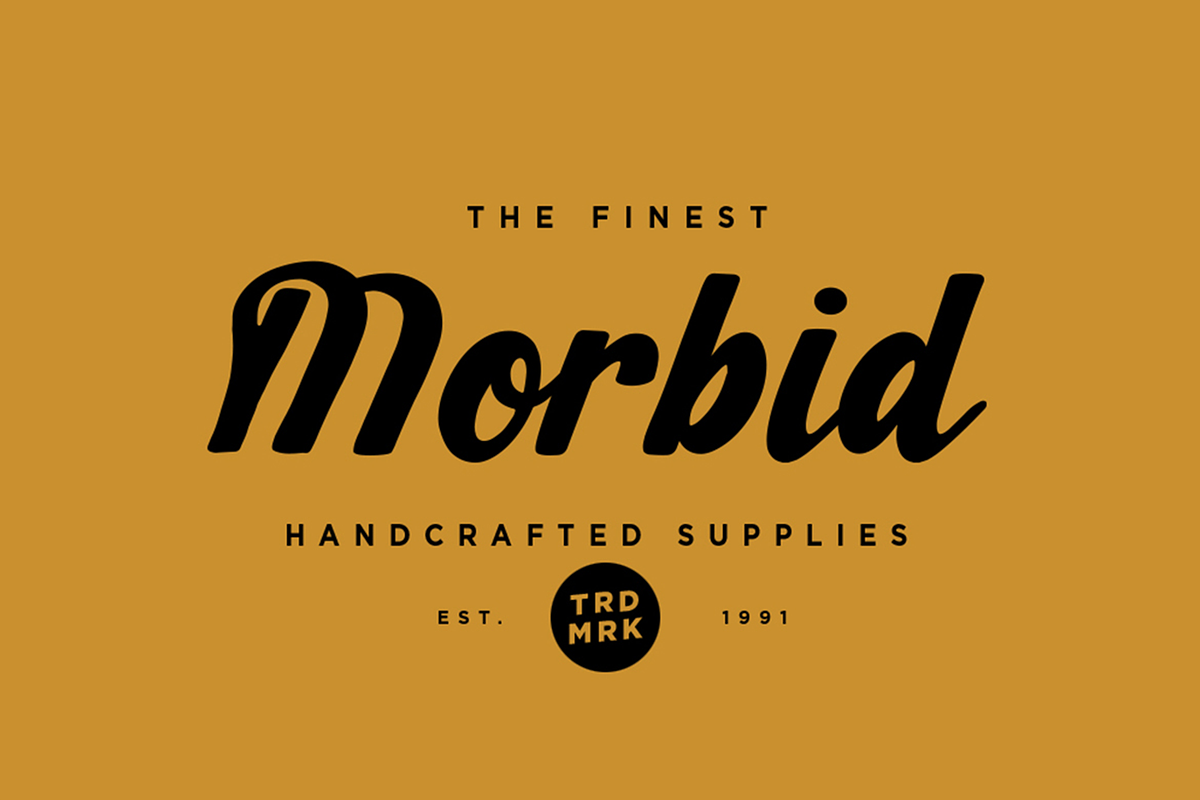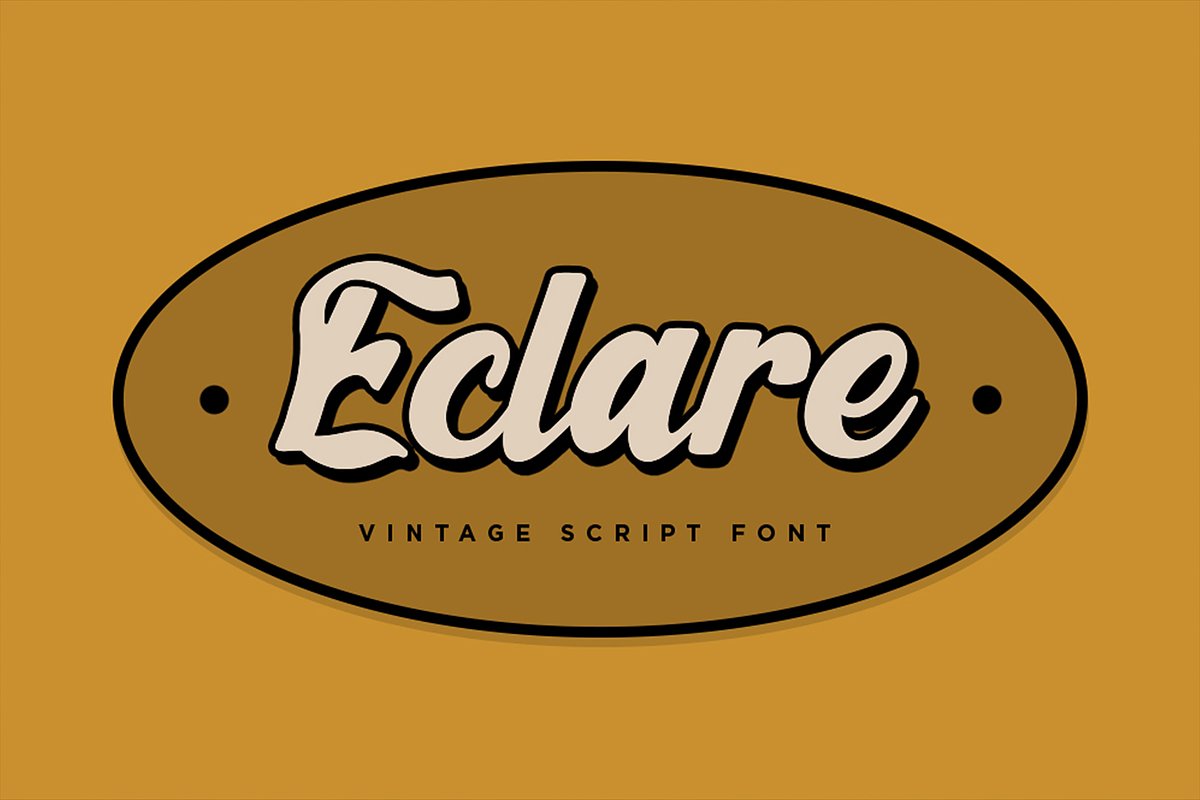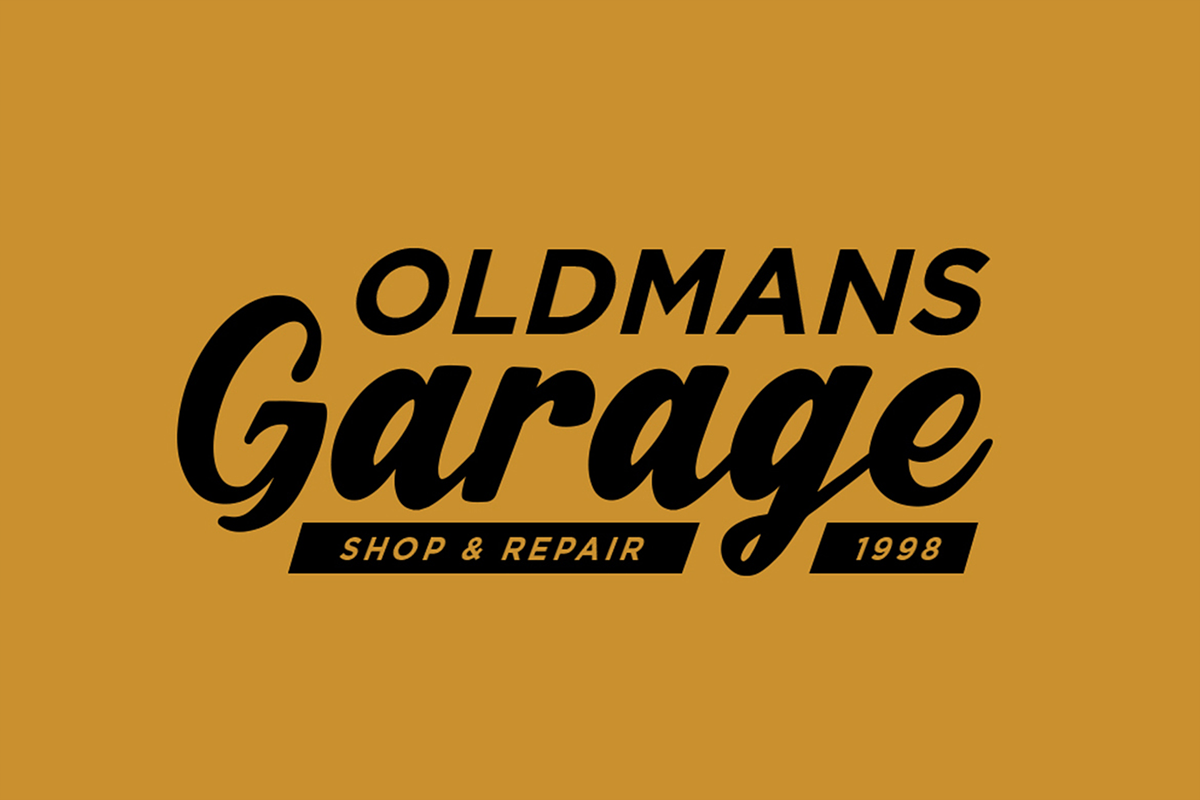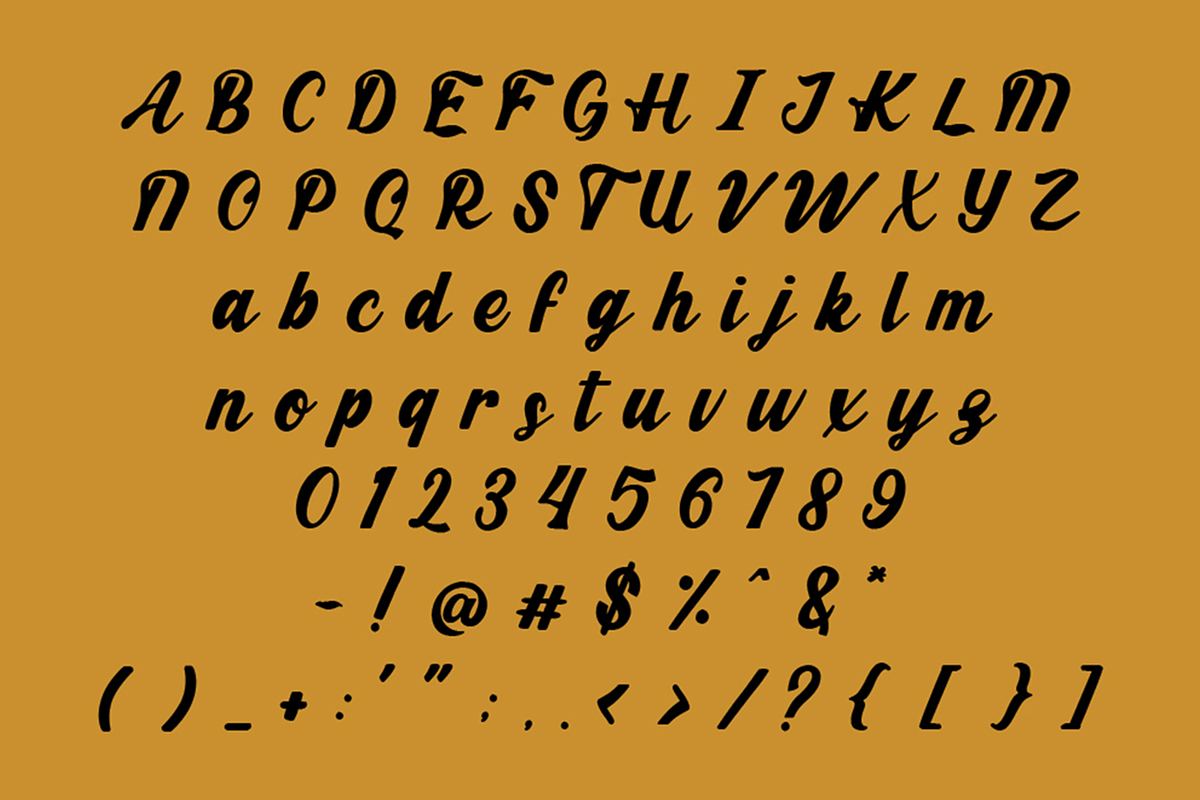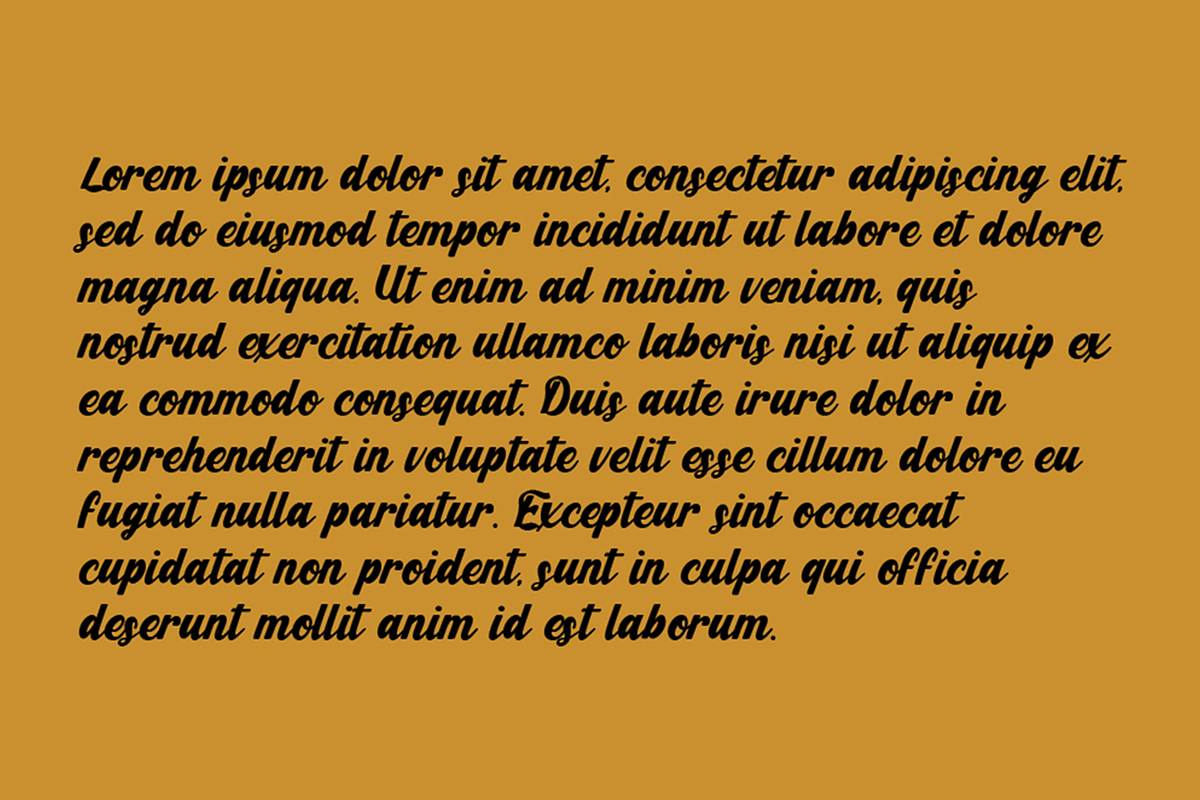
Eclare – Vintage Script Fonts
Back in those eras when there’s no machine involved, every typeface, every letter, is drawn by hand. Simplified your process by instantly bring those vibes into nowadays digital vintage design with Eclare. A vintage classic script font, 100 percent drawn by hand in every letter. Perfectly fit for your vintage label, logo, branding, clothing, garage sign, merchandise, poster, handcrafted products, you name it.